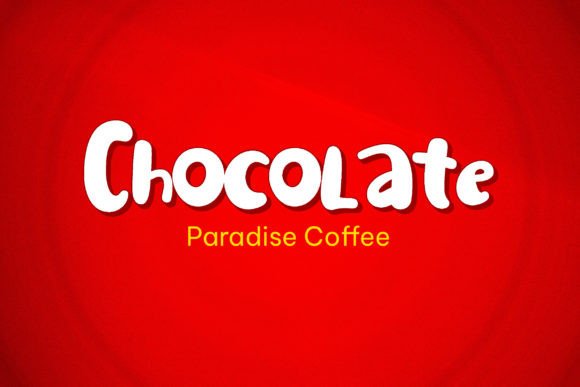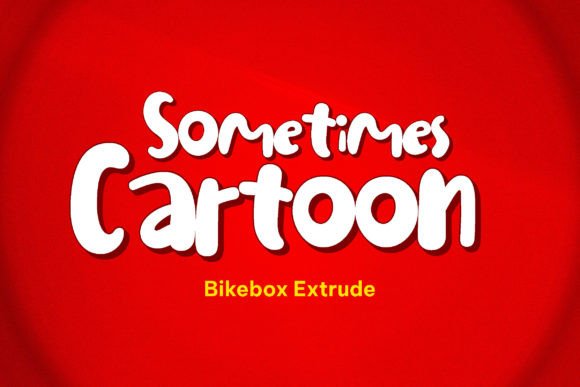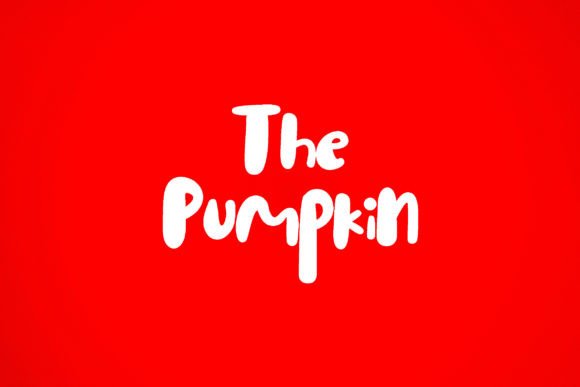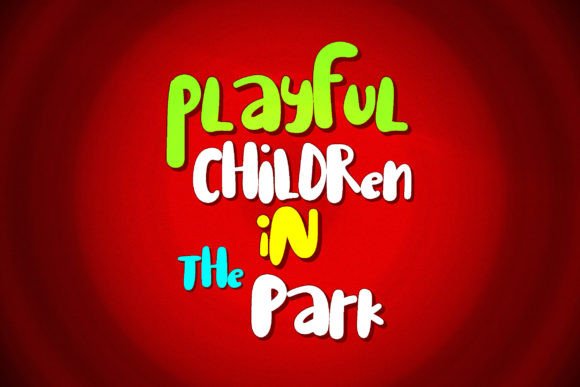
The Joy of Creativity: Introducing the Bikebox Font
There’s nothing quite like the feeling of staring at a blank page, pencil in hand, and waiting for inspiration to strike. For designers, this moment is a familiar one – a chance to bring their ideas to life and create something truly unique. And what better way to add a touch of personality to your project than with a font that’s as playful as you are?
Meet the Bikebox Font, a display font that’s bursting with energy and fun. With its round, chubby design, this font is perfect for adding a sense of whimsy to your branding, packaging, or logos. Whether you’re creating a new product line or rebranding an existing one, the Bikebox Font is a valuable addition to your design toolkit.
Bikebox Font Key Features
- Font Family: Bikebox Font is a sans-serif font designed specifically for cycling and outdoor enthusiasts.
- Character Set: The font includes a wide range of characters, including uppercase and lowercase letters, numbers, punctuation marks, and special characters.
- Resolution: Bikebox Font is designed to be highly legible at various resolutions, including low-resolution displays and high-resolution printing.
- Size: The font is available in multiple weights, ranging from light to bold, allowing for flexibility in design and typography.
- Unique Characteristics: Bikebox Font features a unique, modern design that incorporates elements of cycling and outdoor culture, making it a distinctive choice for branding and design projects.
Bikebox Font Review
I recently had the chance to work with Bikebox Font, and I must say it was an interesting experience. ✨ One thing that works well with this font is its uniqueness. It has a quirky, modern feel that could add a lot of character to a design project. The font’s bold lines and geometric shapes make it perfect for headings and titles.
- Unique and modern design
- Perfect for headings and titles
- Good for creating a bold and eye-catching effect
However, there are a few limitations to consider. ⚠️ One of the main issues is that the font can be quite difficult to read in smaller sizes. This is because the bold lines and geometric shapes can make the text look cluttered and overwhelming. Additionally, the font’s limited character set can make it difficult to use in longer blocks of text.
- Difficult to read in smaller sizes
- Limited character set
- Can be overwhelming in longer blocks of text
Overall, I would say that Bikebox Font is a good choice for designers who are looking for a unique and modern font to add some flair to their project. However, it may not be the best choice for projects that require a lot of text or smaller font sizes.
Tips for Getting the Most Out of Bikebox Font
Here are some tips for getting the most out of Bikebox Font:
- Combine Bikebox Font with other fonts for a unique and modern look.
- Use Bikebox Font for headings and titles to create a clear hierarchy of information.
Bikebox Font is commonly used for:
- Creating eye-catching headings and titles.
- Designing custom logos and graphics.
- Developing modern and stylish typography projects.
Alternatives to Bikebox Font
Great Vibes Font is a high-contrast sans-serif font with a playful feel. It’s perfect for use in logos, titles, and headings where a bold statement is required. Great Vibes Font is more modern and edgy compared to Bikebox Font, which has a more retro feel.
2. Museo Sans Font
Museo Sans Font is a modern sans-serif font with a sleek and sophisticated feel. It’s ideal for use in body text, headings, and titles where a clean and professional look is desired. Museo Sans Font is more versatile and neutral compared to Bikebox Font, which has a distinct retro vibe.